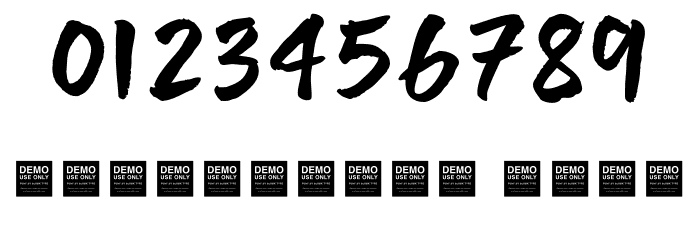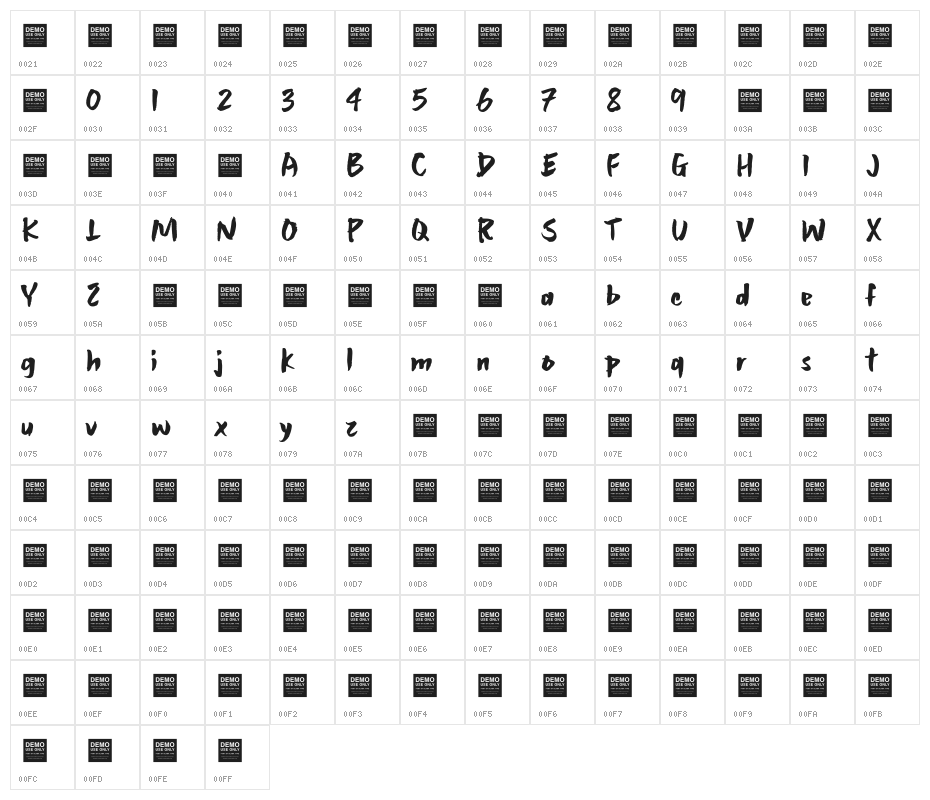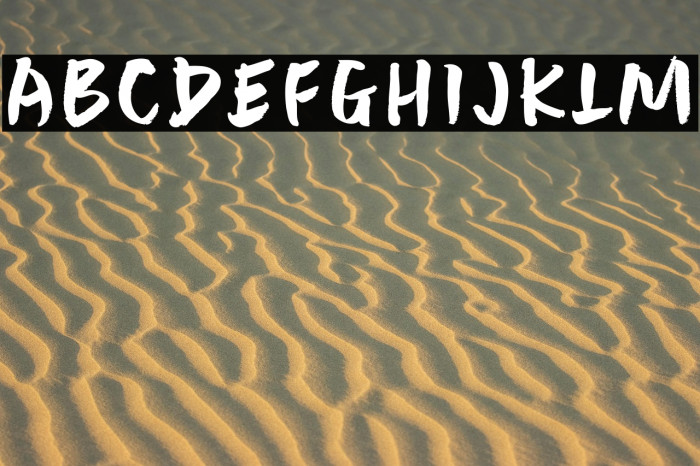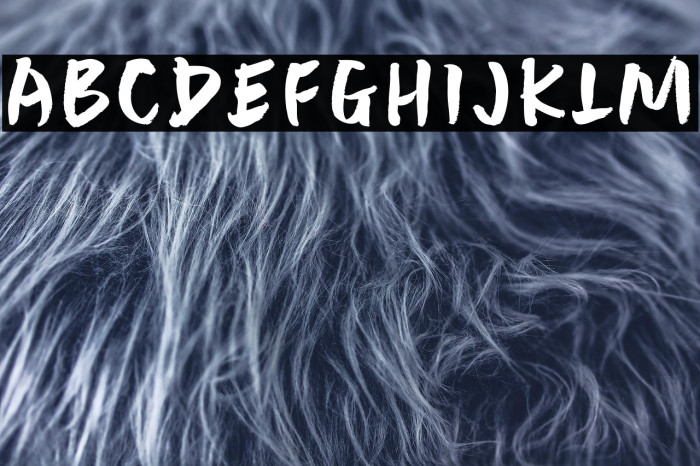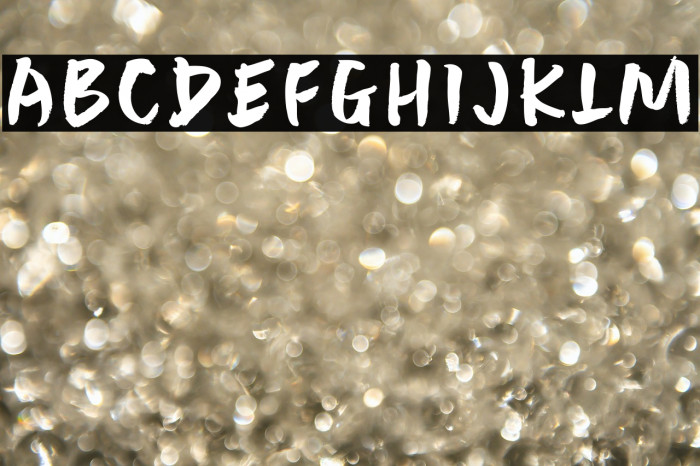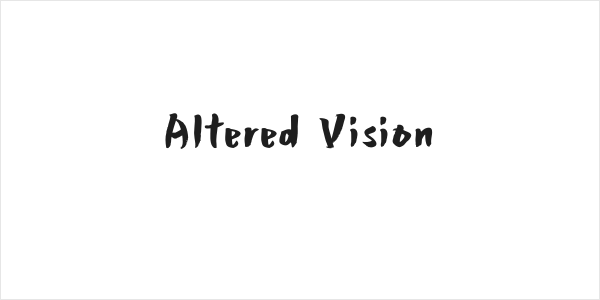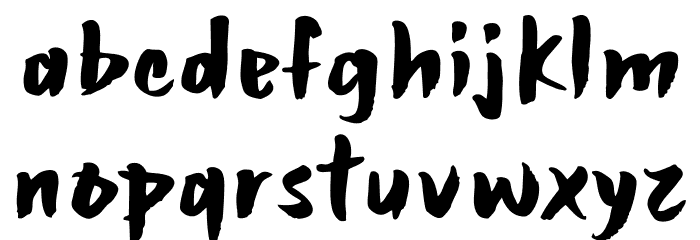
Altered Vision Font
Altered Vision Description
This font features a bold and expressive handwritten style, characterized by its brush-like strokes and dynamic flow. Each letter exhibits a unique, organic form, giving the typeface a lively and energetic appearance. The uppercase and lowercase letters maintain a consistent style, with slightly irregular edges that enhance its handcrafted feel. The numbers and special characters follow the same aesthetic, ensuring a cohesive look across all elements. This font's boldness and distinctiveness make it ideal for projects that require a personal touch or artistic flair.